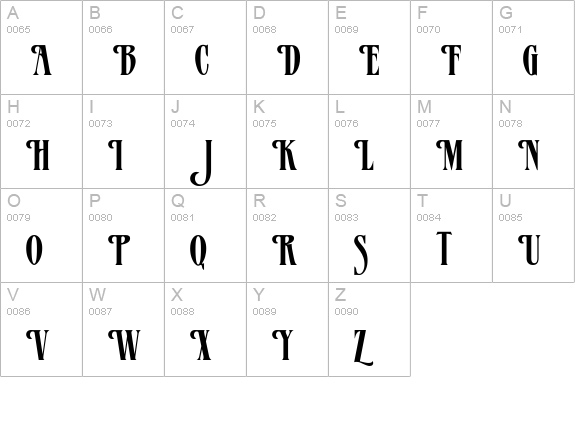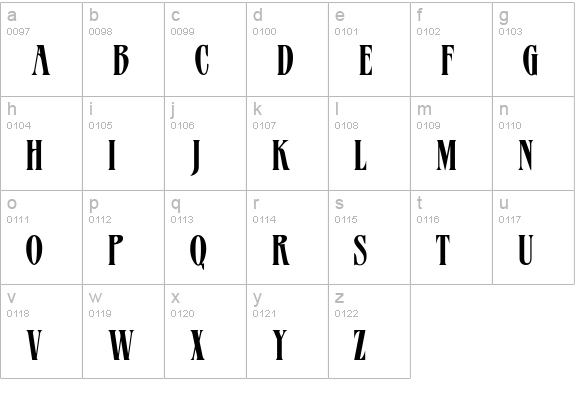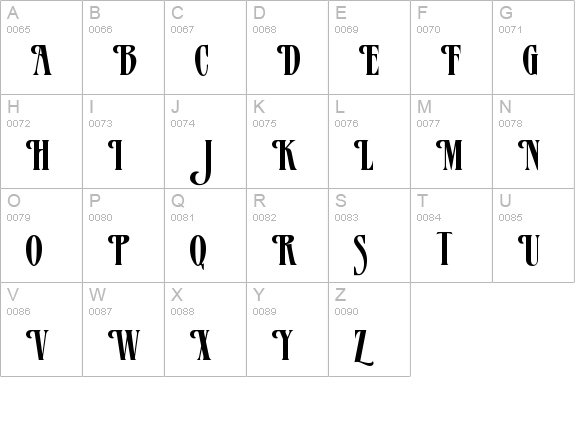
MazamaRegular Font Details
MazamaRegular font is a beautifully crafted typeface that combines elegance with modernity. Its clean lines and balanced proportions make it perfect for a wide range of design projects, from branding to editorial design. The versatility of MazamaRegular font allows it to be used in both headings and body text, ensuring a cohesive and professional look throughout your work. What makes MazamaRegular font even better is that it is available for free download at FontsMarket.com. This means you can easily add this stylish font to your collection without having to worry about any additional costs. Don't miss out on the opportunity to enhance your designs with MazamaRegular font and elevate your projects to the next level. Download it now and start creating stunning visuals with this exceptional typeface.